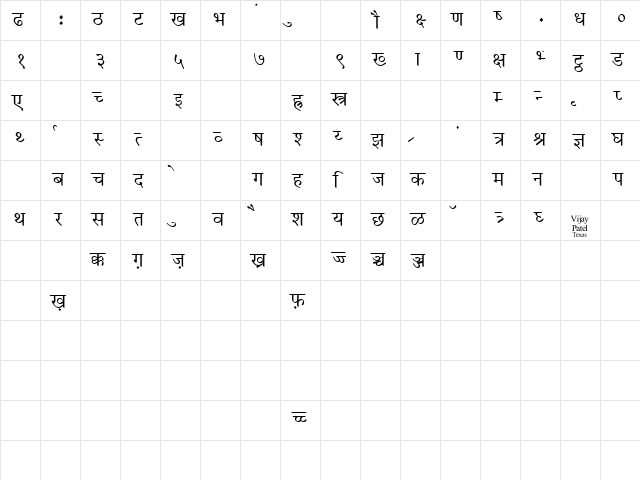
Marathi Vijay Demo Regular
Design Context for Marathi Vijay Demo Typeface
Marathi Vijay Demo takes a measured approach to typography — its balanced proportions and neutral character make it a reliable workhorse for both digital and print work.